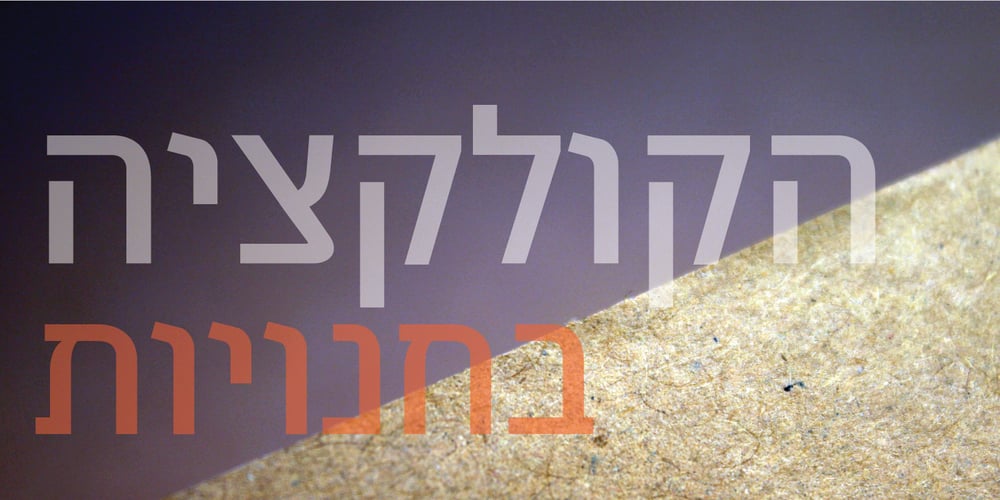
Lakreeut MF Font Family was designed by Zvika Rosenberg and published by Masterfont. Lakreeut MF contains 3 styles and family package options. Geometric forms make this elegant font family a great companion for titles, invitations and signs, indoor and outdoor.